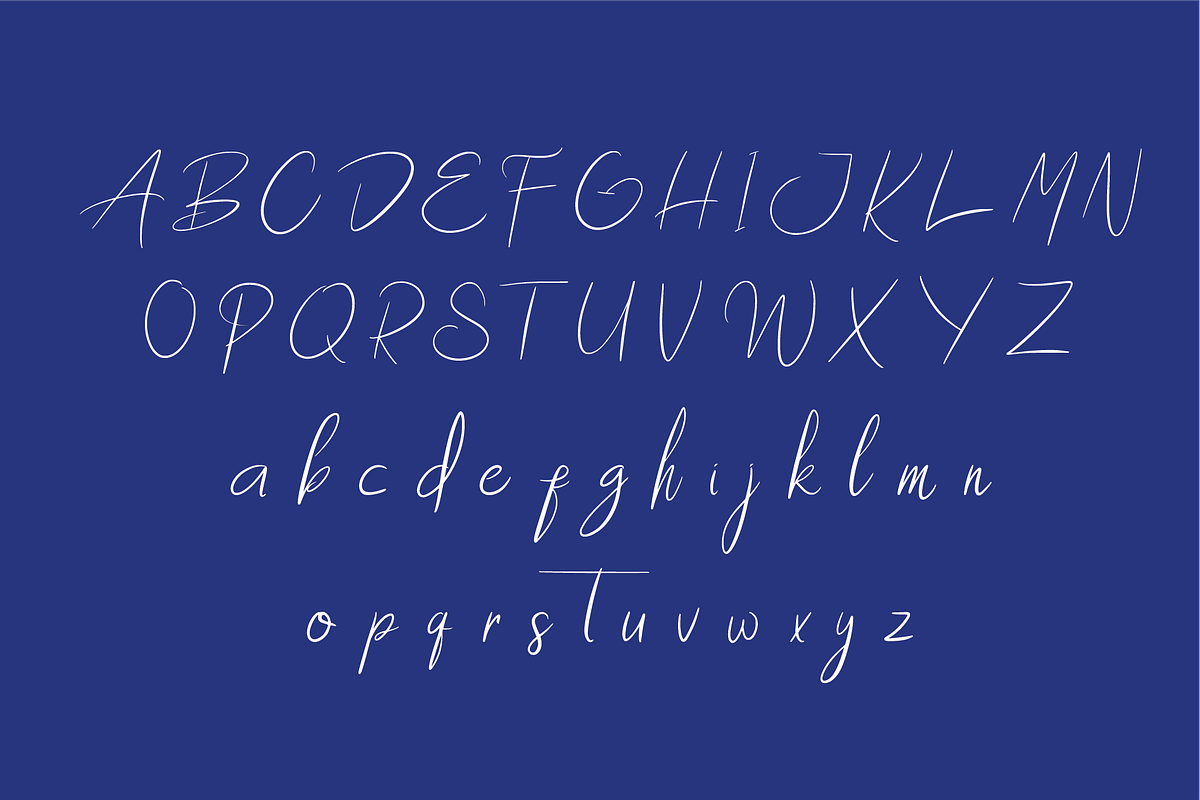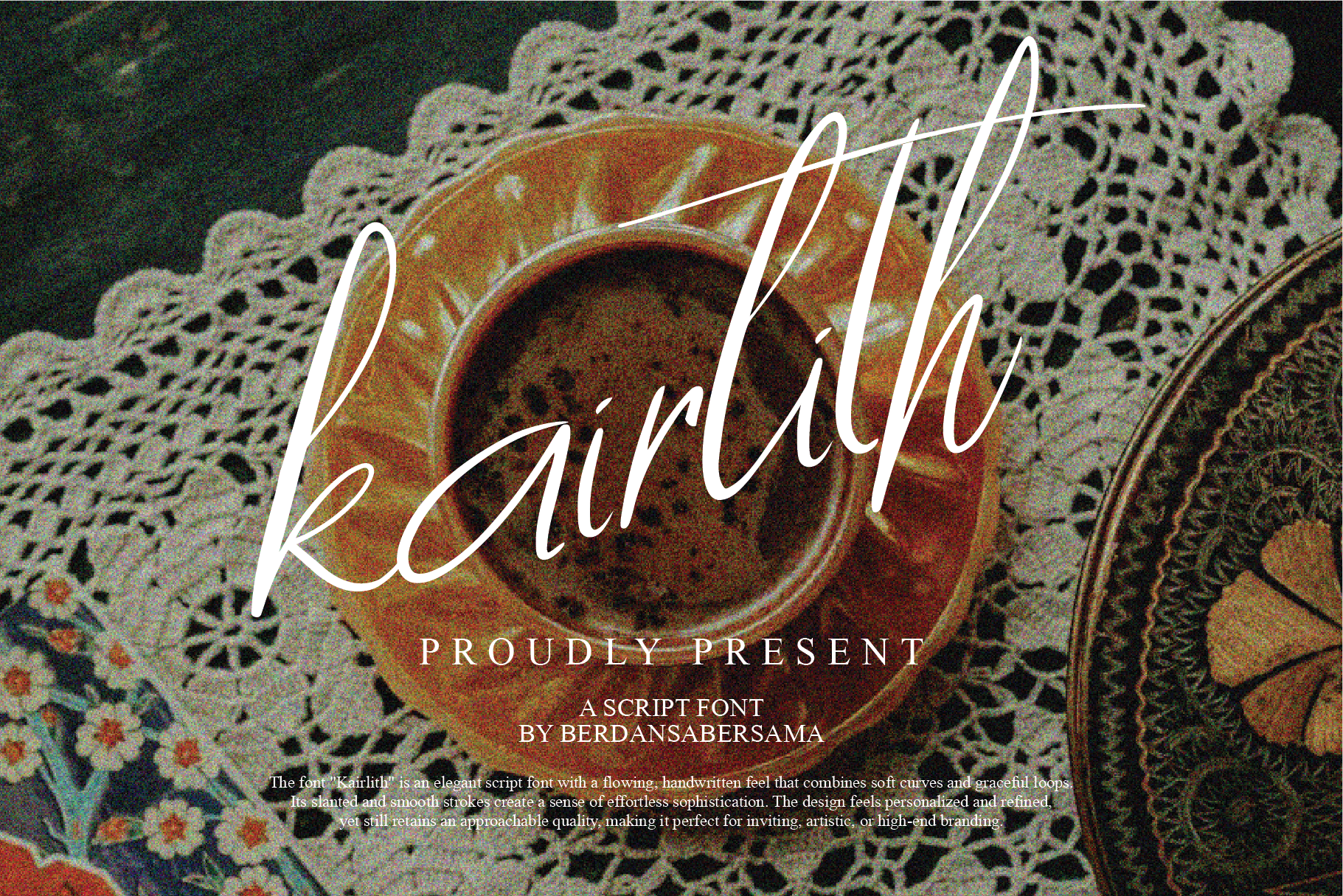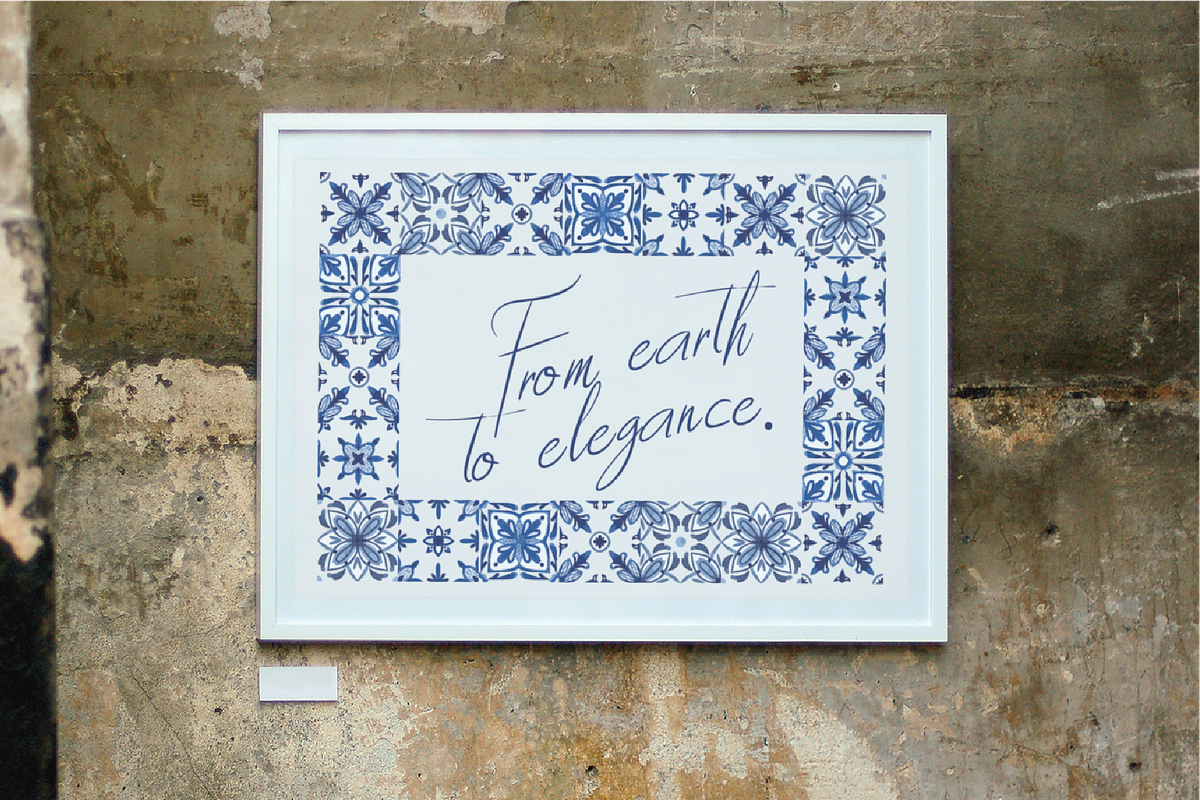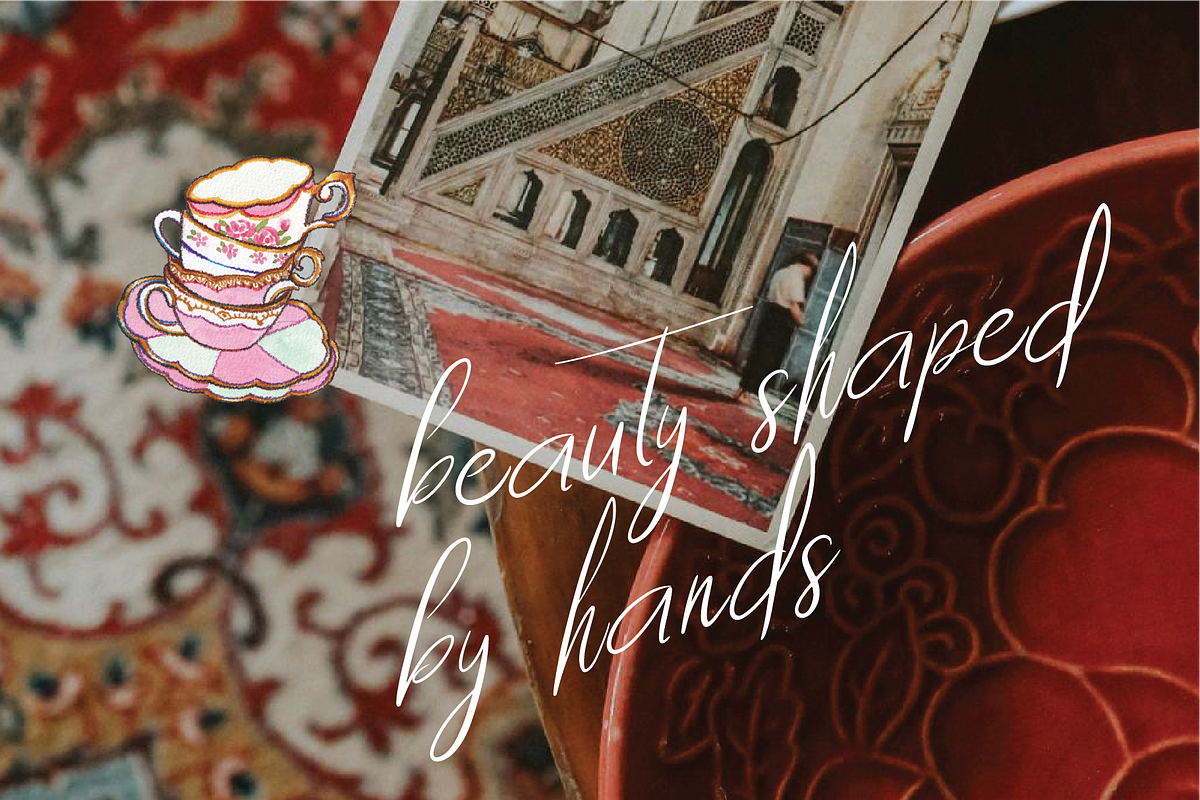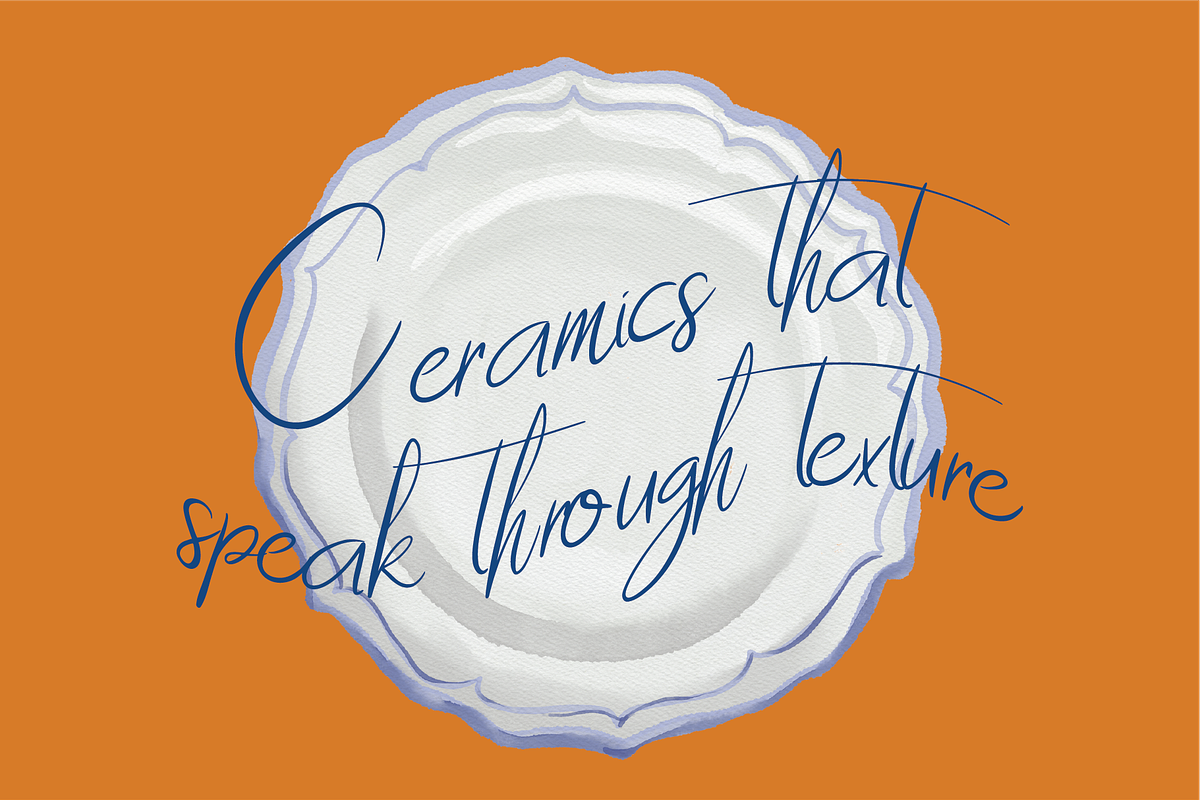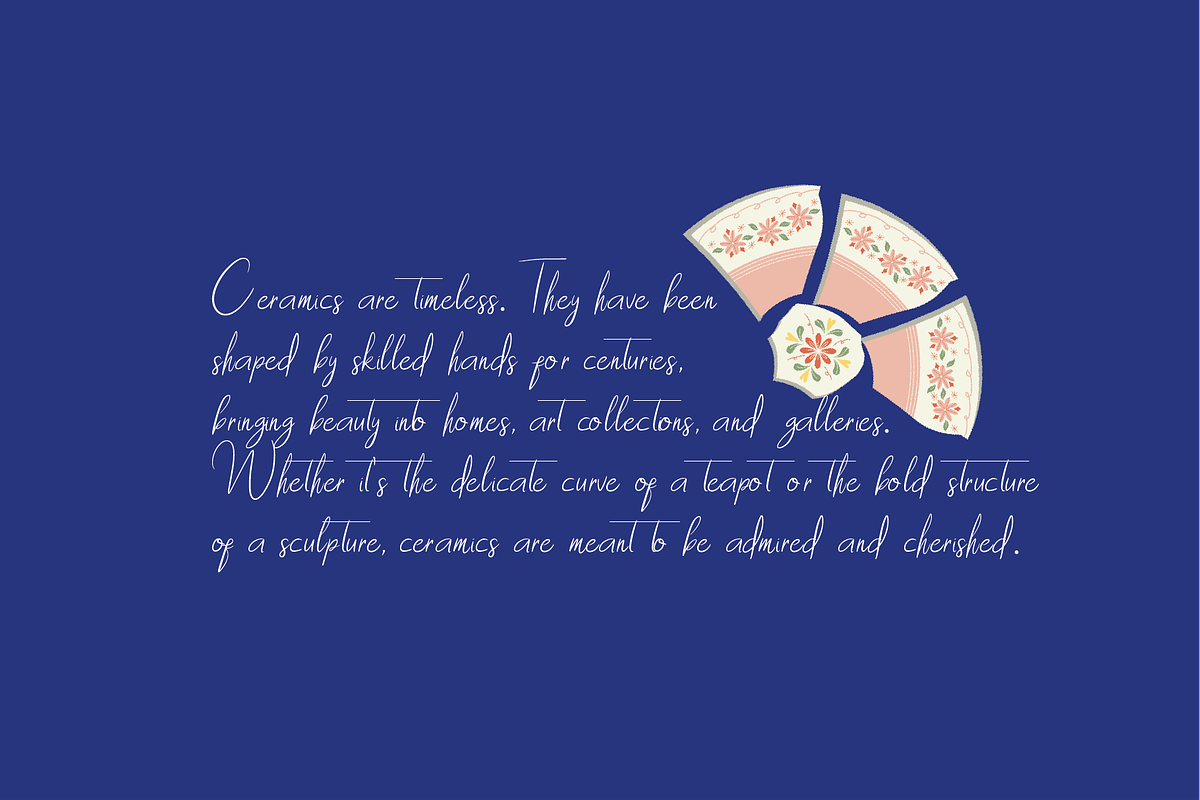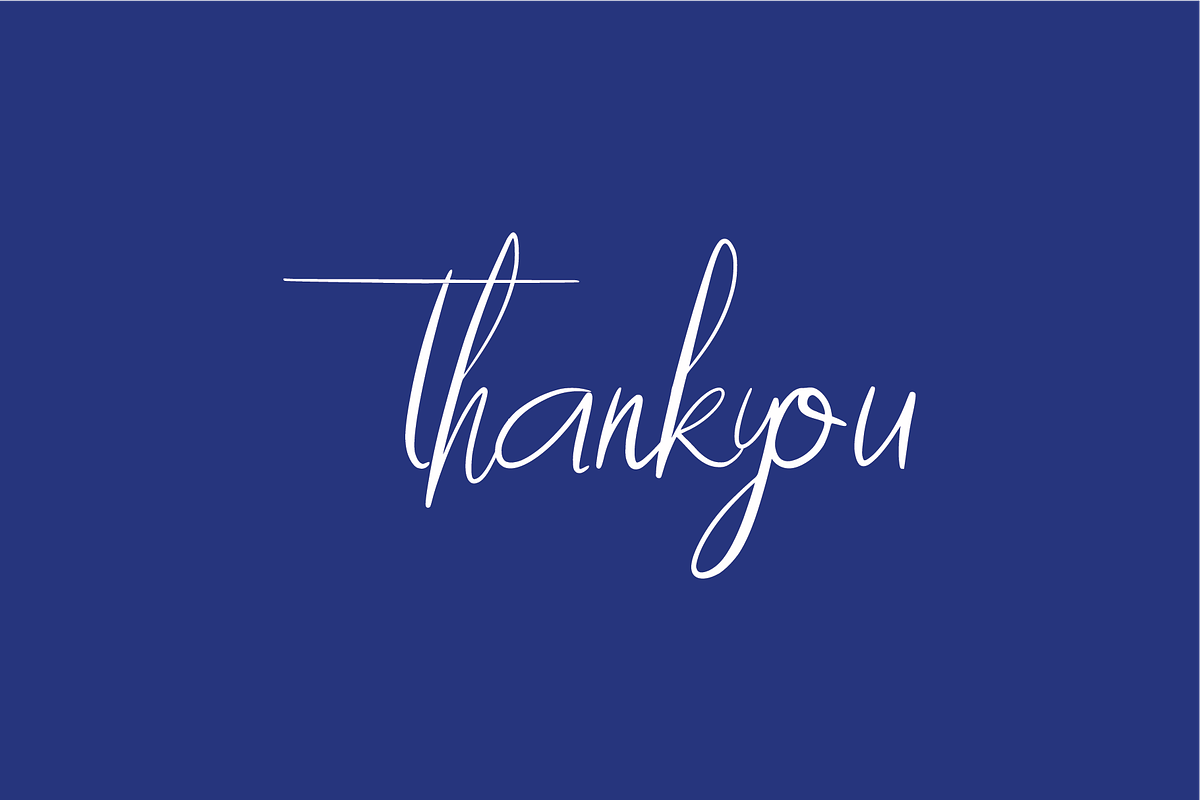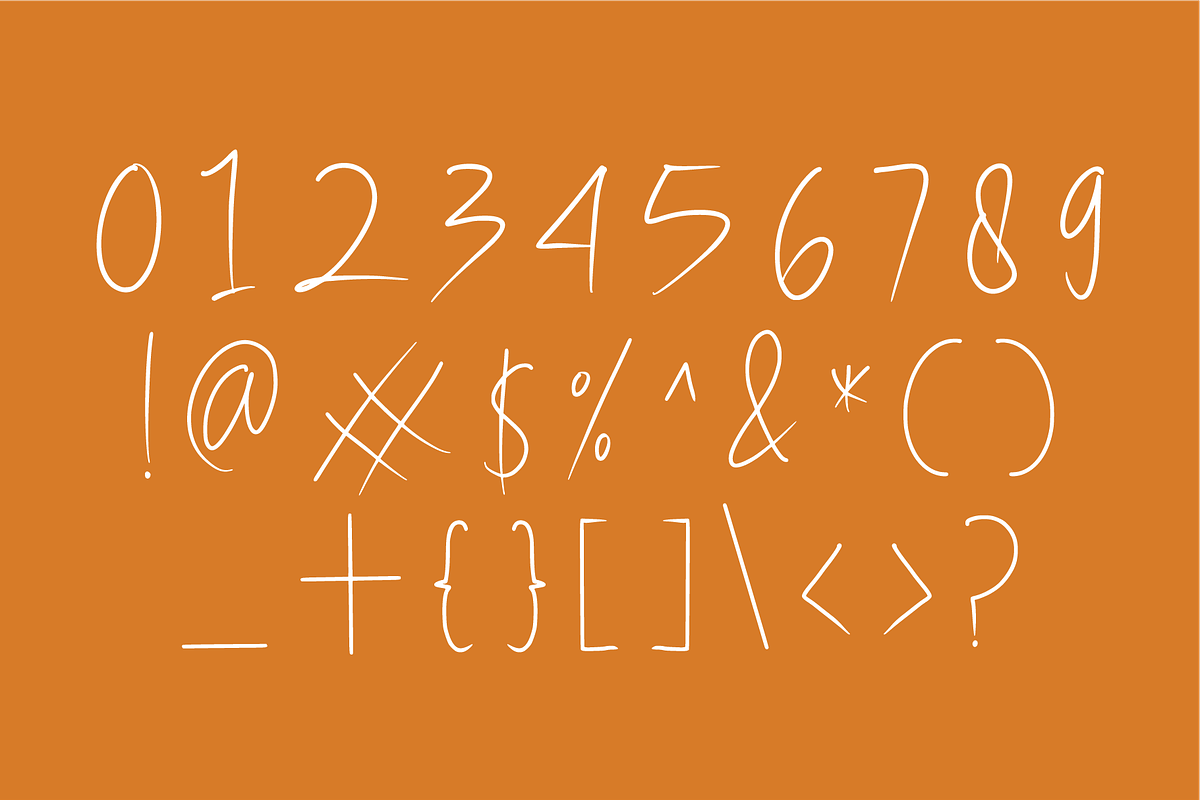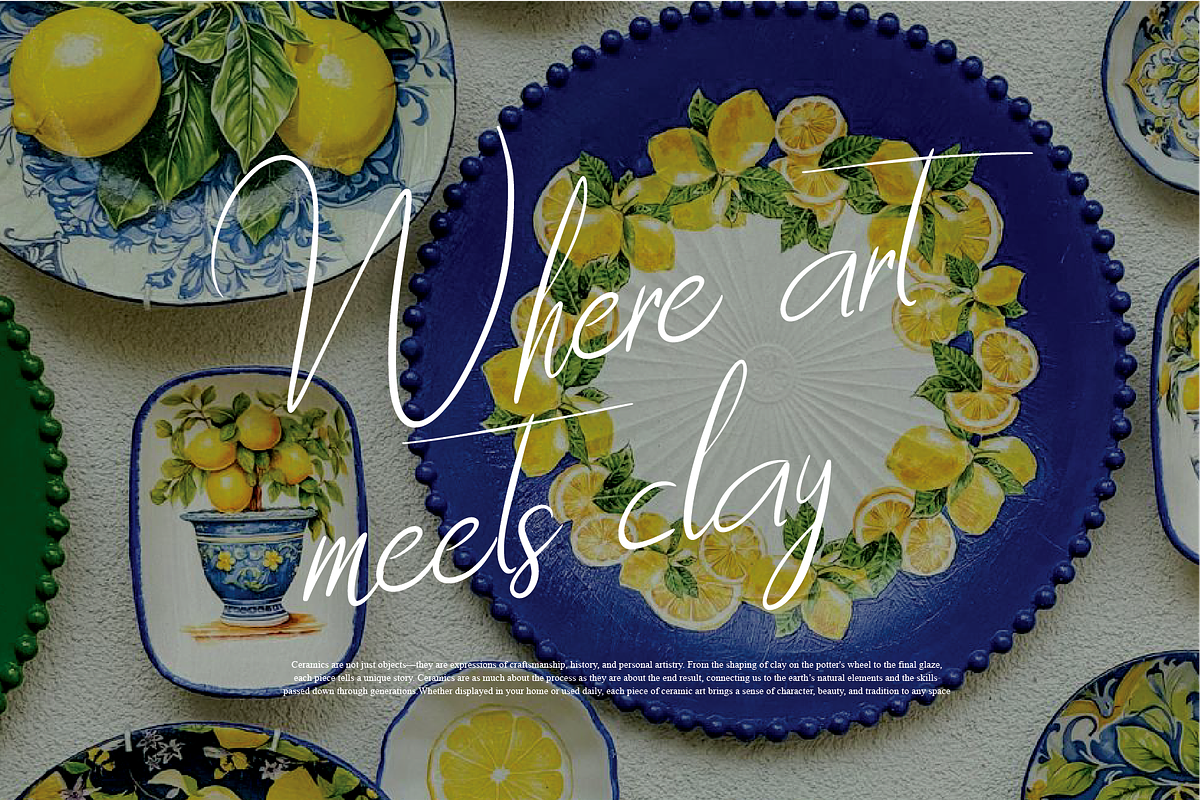
Kairlith A Script Font
Kairlith is an elegant handwritten script font with a long, flowing stroke style that feels effortless and poetic. Its tall, graceful letterforms create a sense of movement — like handwriting captured in a quiet moment of thought.
- Numbers, marks and symbols